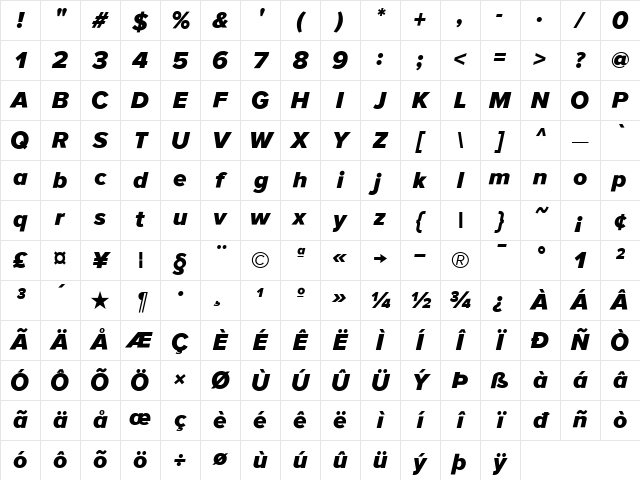
Complete ProximaSansBlackOblique Regular glyph index. Displaying only characters natively supported by ProximaSansBlackOblique Regular font.
ProximaSansBlackOblique is a composed and adaptable typeface that performs quietly and consistently across a wide range of design contexts. The slanted form adds forward momentum and visual energy.